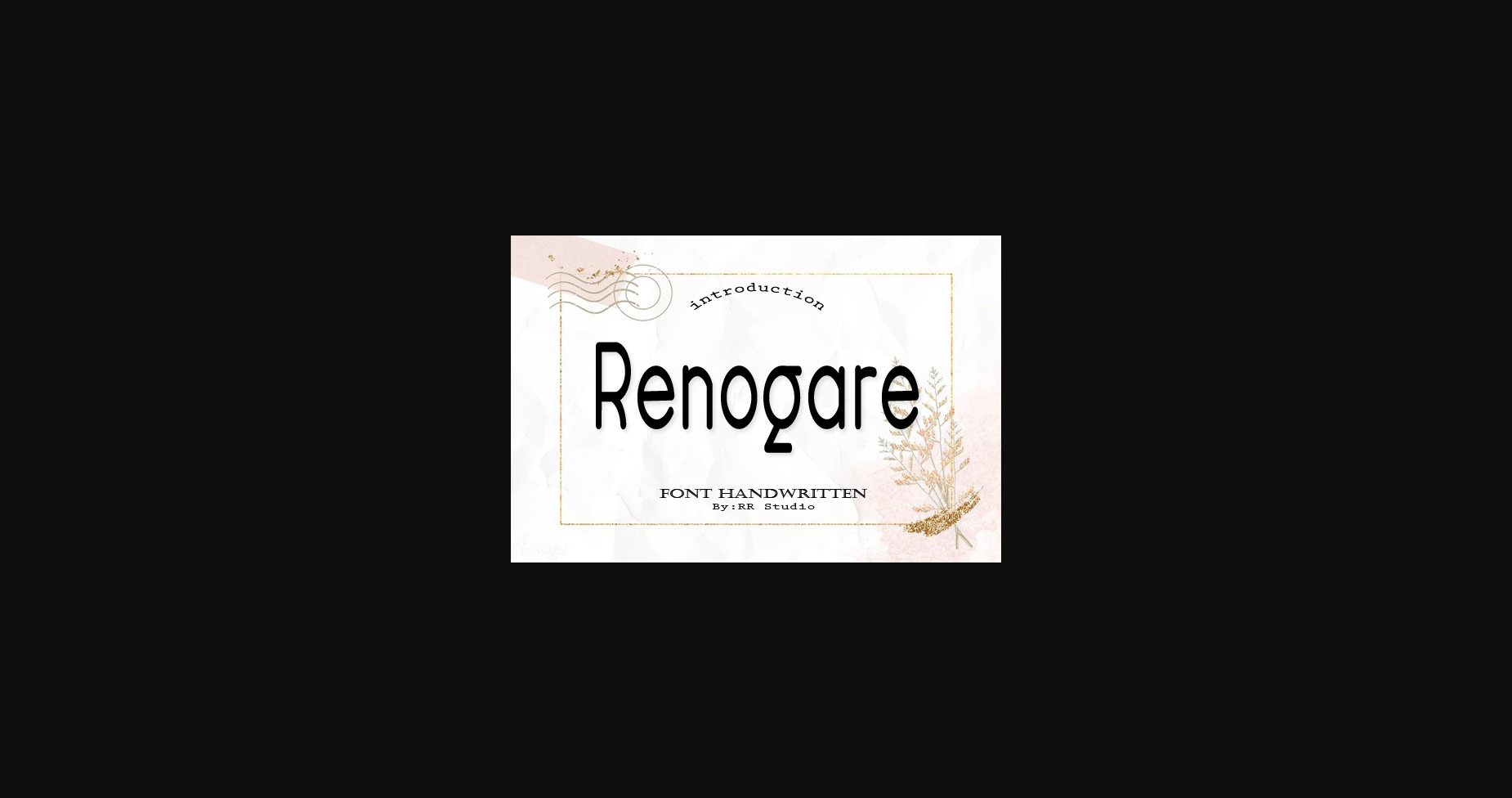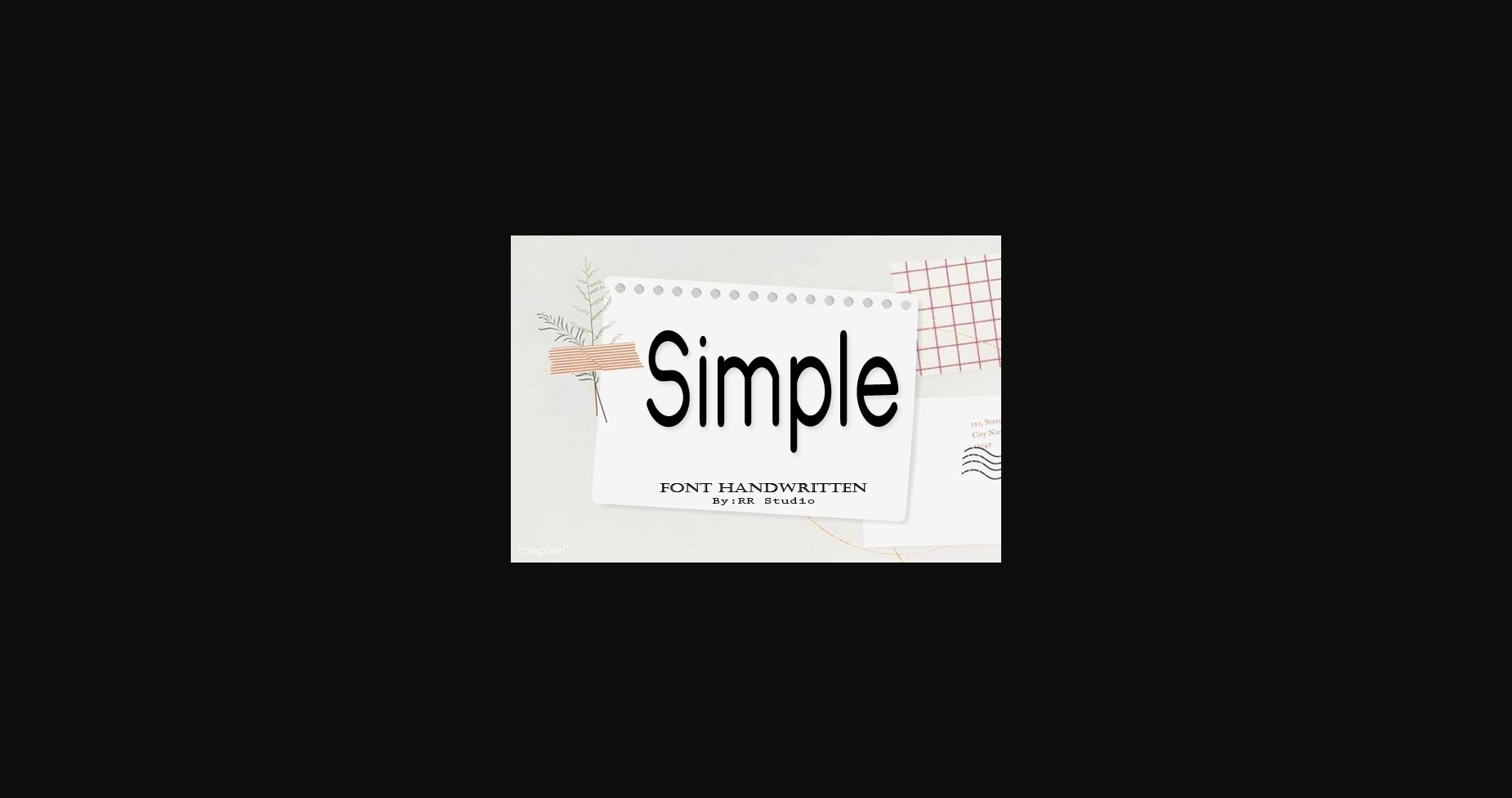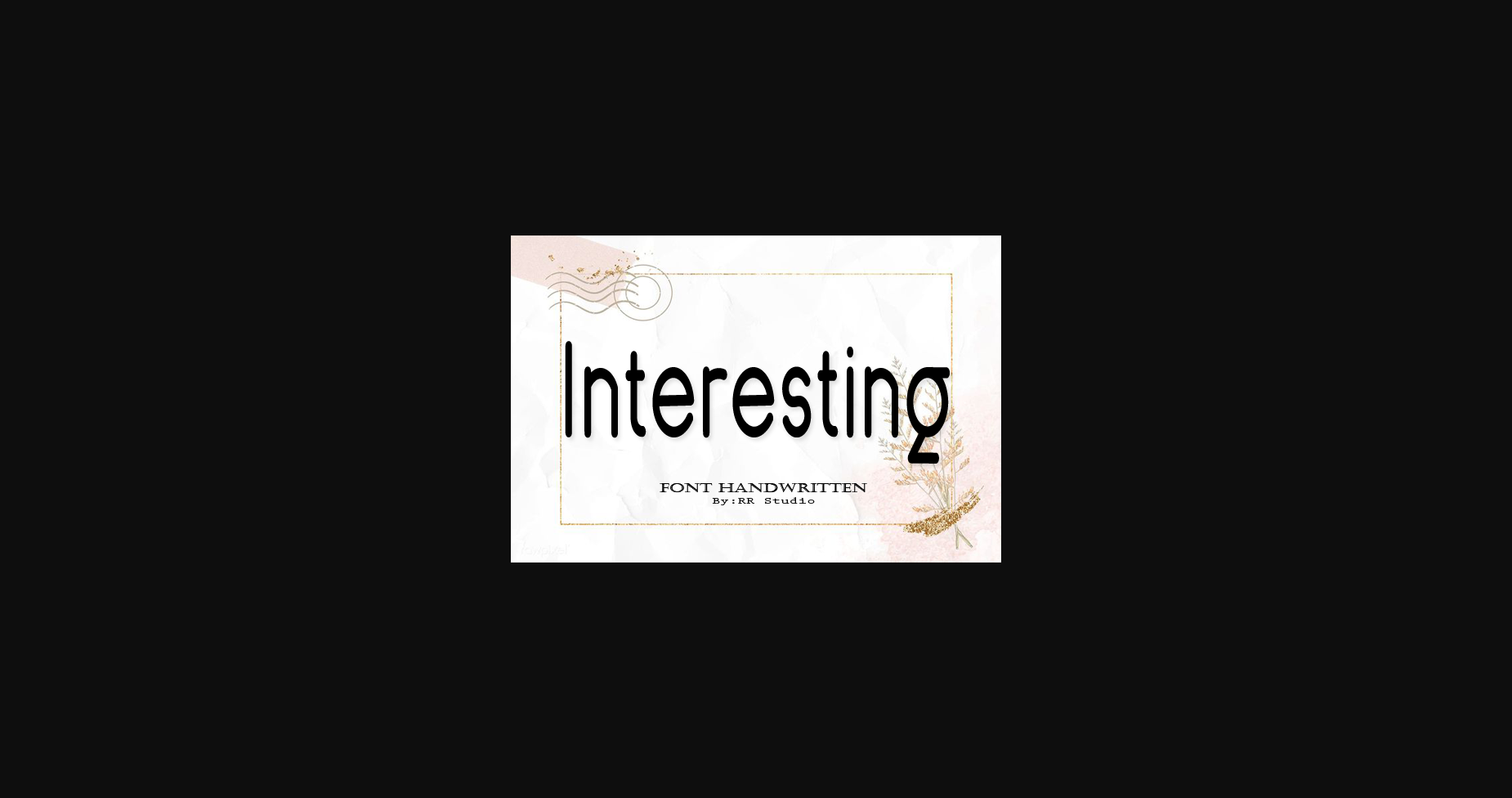
About Renogare Font
Renogare is a simple and clean sans serif font. It looks cute on thank you cards, quotes, greeting cards, logos, business cards and every other design which needs a customized touch.